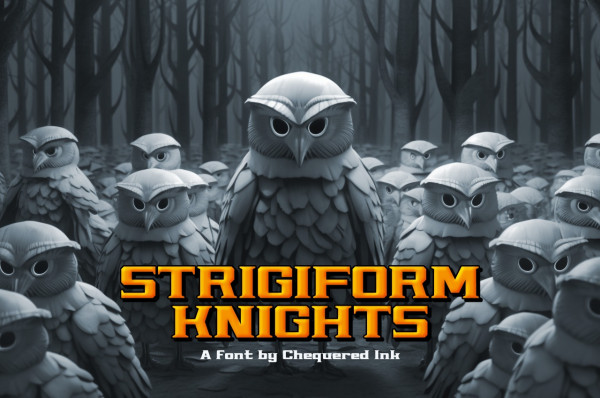
Strigiform Knights Font
Strigiform Knights Font, This font is perfect for stickers, retro projects, craft projects, shirts, svg designs, procreate designs, branding, blogs, logos, invitations and more!